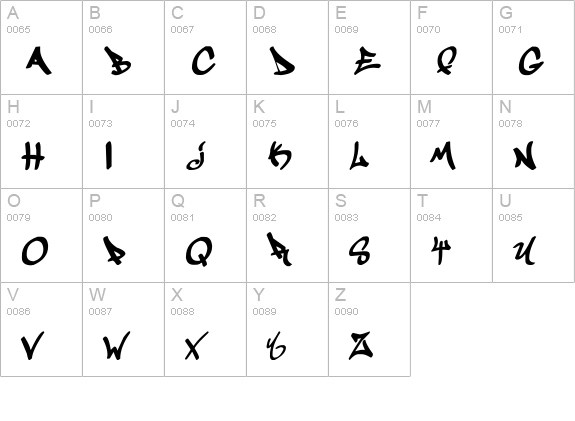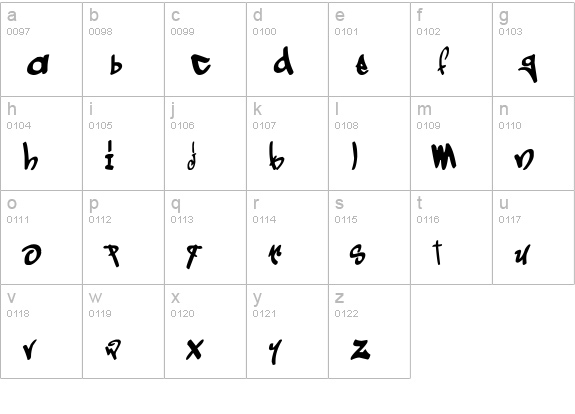
Graffogie Font Details
Graffogie font is a contemporary and versatile typeface that exudes urban flair and artistic charm. With its bold and expressive letterforms, Graffogie captures the essence of street art and graffiti culture. This unique font is perfect for creating eye-catching designs that demand attention and make a bold statement. The Graffogie font is available for free download at FontsMarket.com, making it easily accessible for designers, artists, and creatives looking to add a touch of edginess to their projects. Whether you're working on posters, logos, apparel, or any other design project, Graffogie's dynamic and energetic style is sure to make a lasting impression. Embrace the rebellious spirit of street art with Graffogie font and let your creativity run wild.